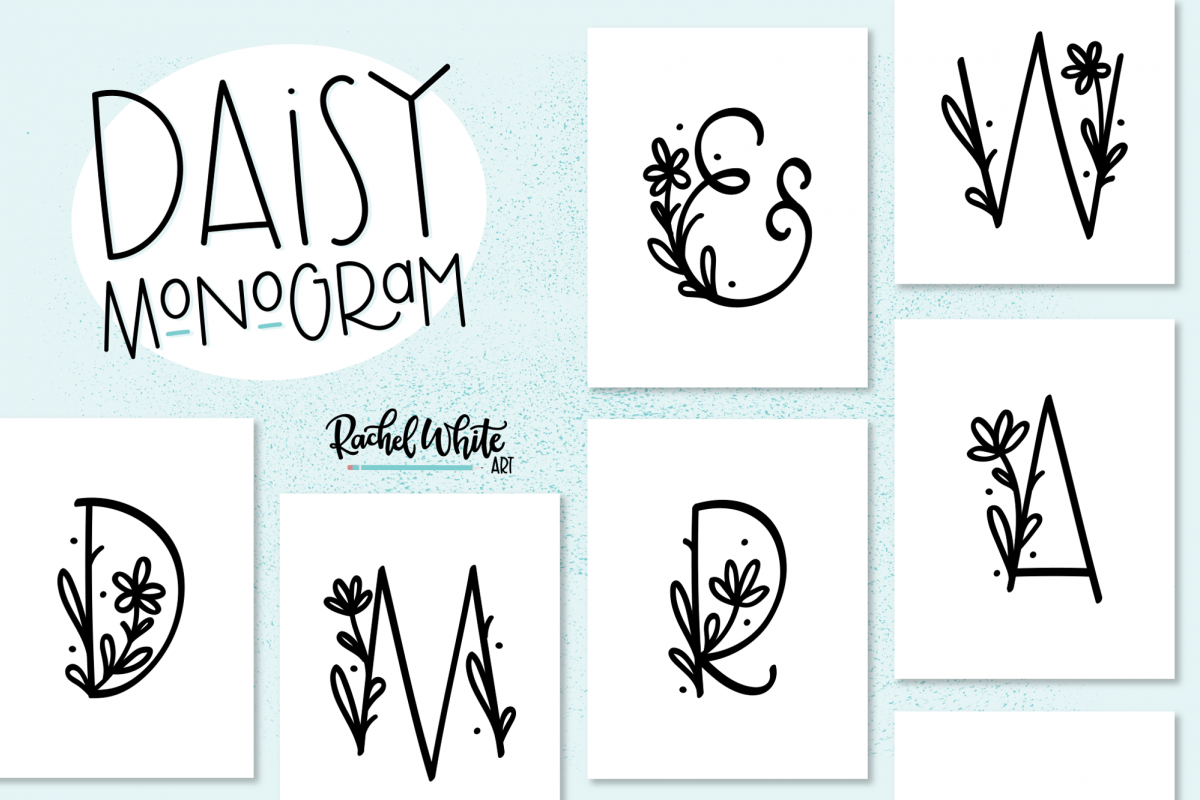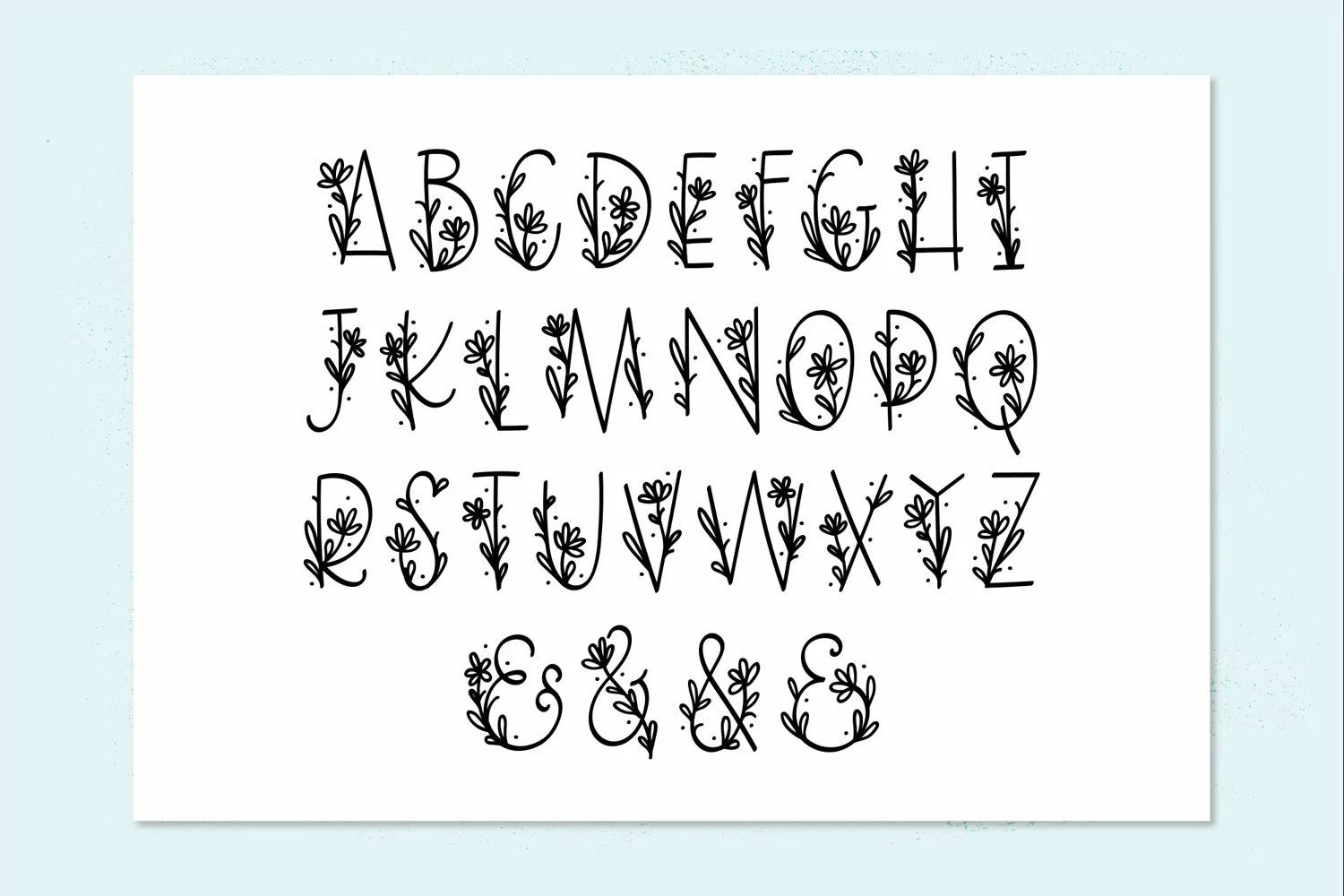
I made a monogram font! I loved making my Daisies illustration set so much I decided to keep going, and created this adorable floral monogram font!
Use the letters together or solo. Each letter is decorated with a daisy and various leaves. Comes with 4 ampersands, because I like to have lots of options! Works great for a quirky summer wedding, or putting your mark on everything you own. :)
This font includes 26 letters and 4 ampersands.